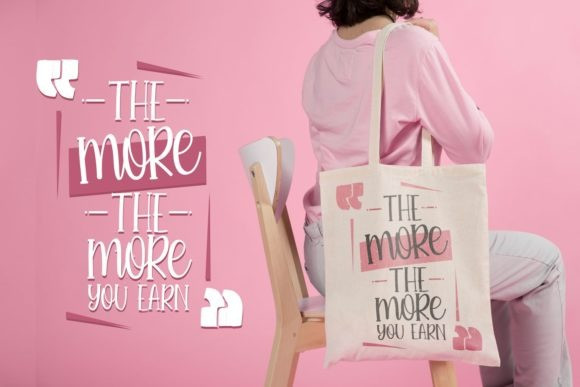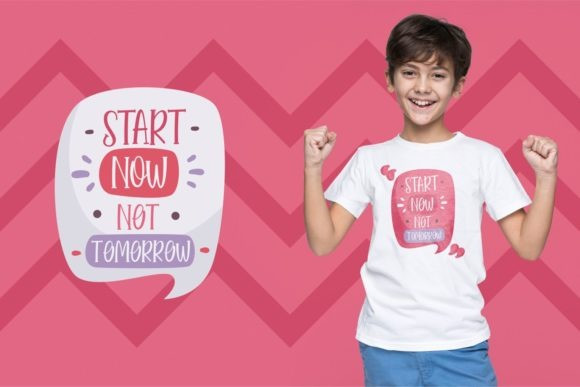
Kenjier Children Display Font
Kenjier Children is a cool and trendy-looking display font that is great for logos, badges, clothing, posters, and other projects that need to stand out from the crowd. Add this font to your favorite creative ideas, and notice how it makes them come alive!